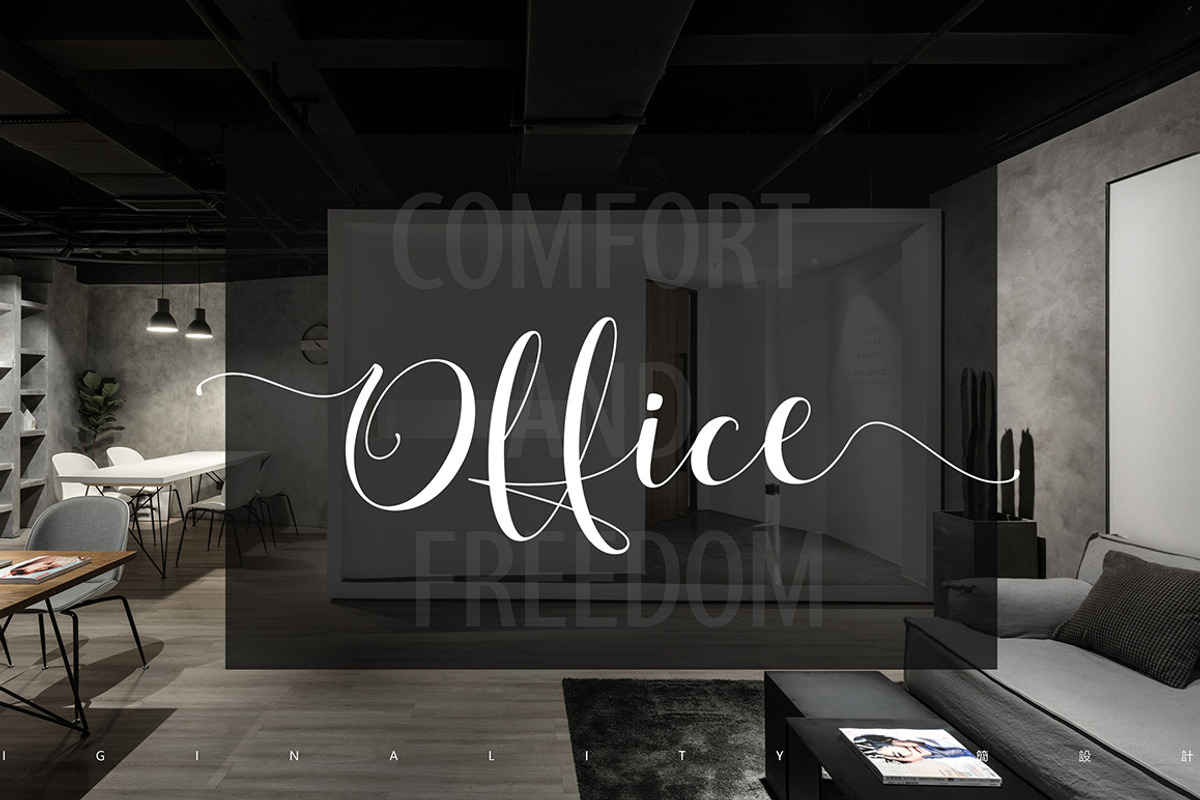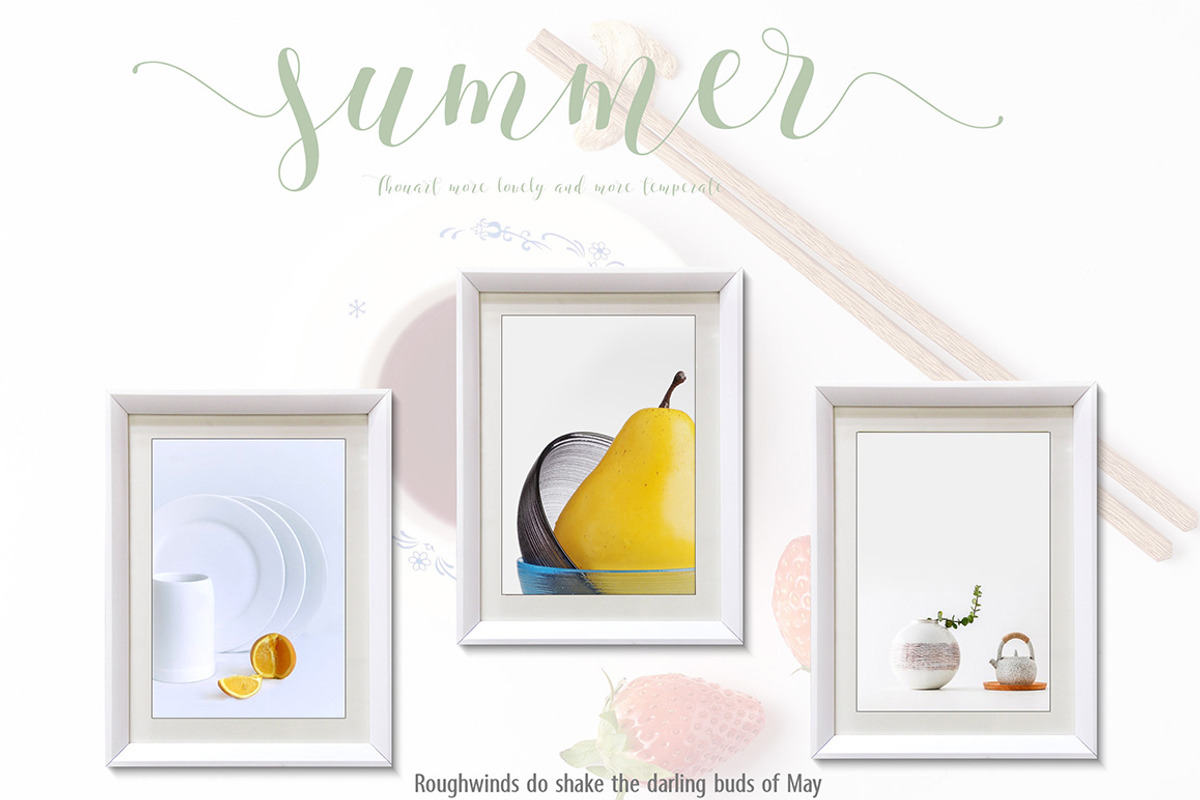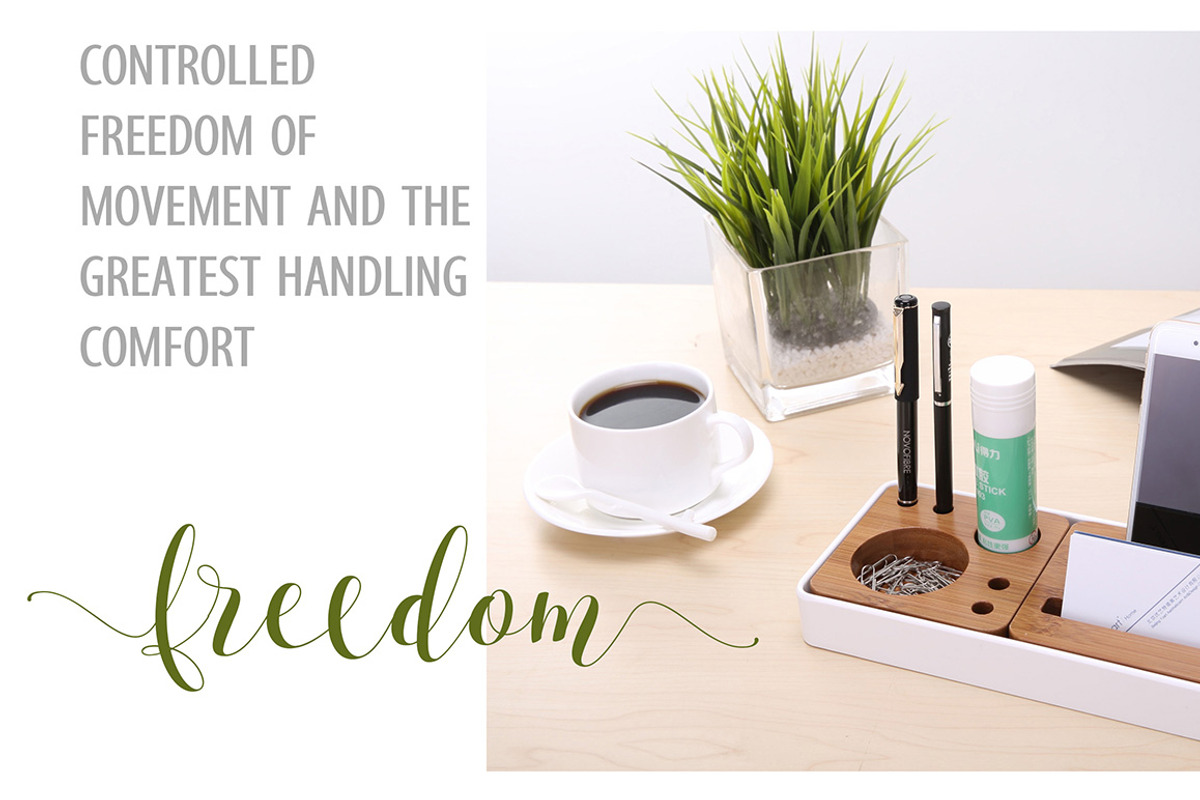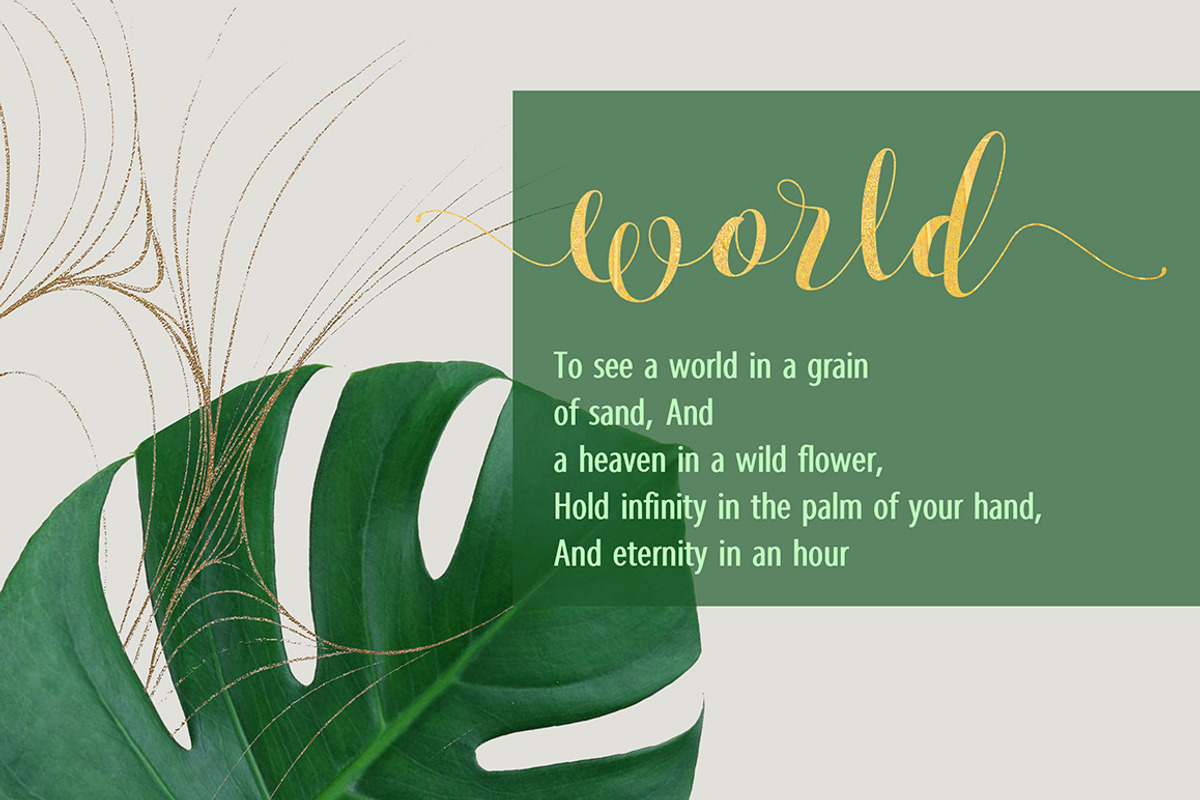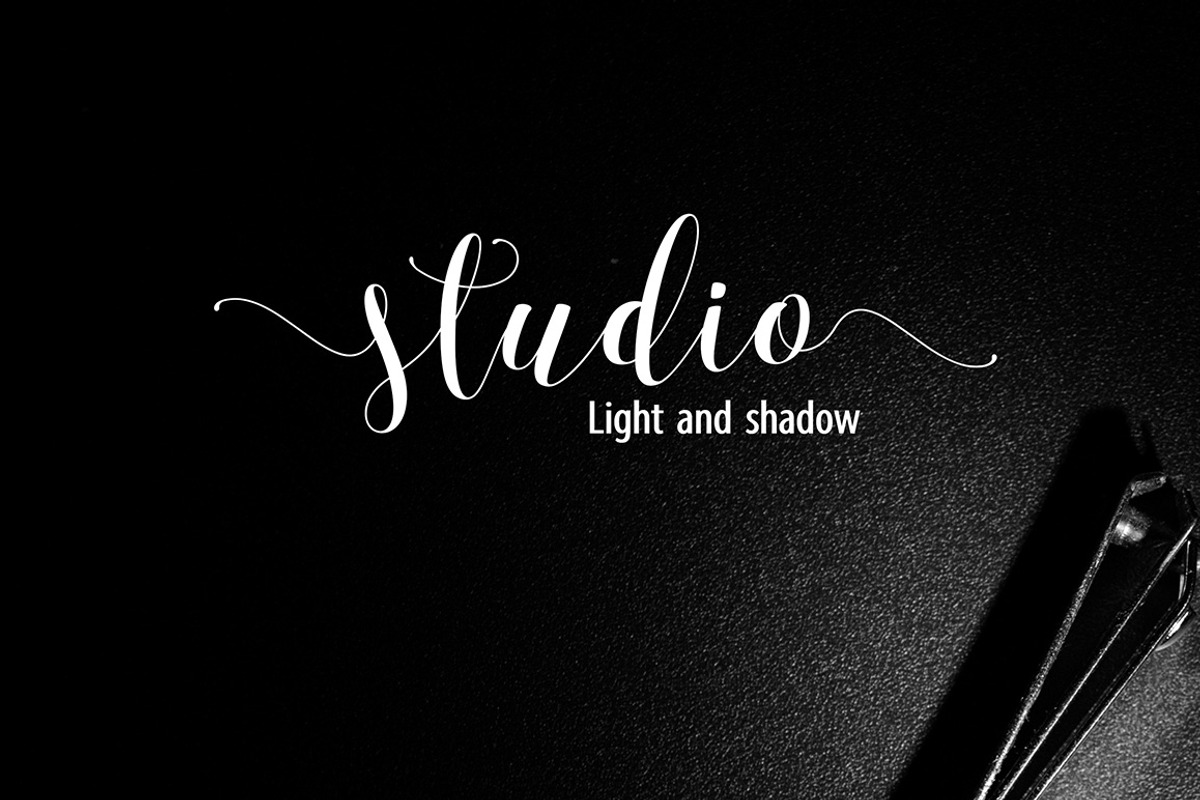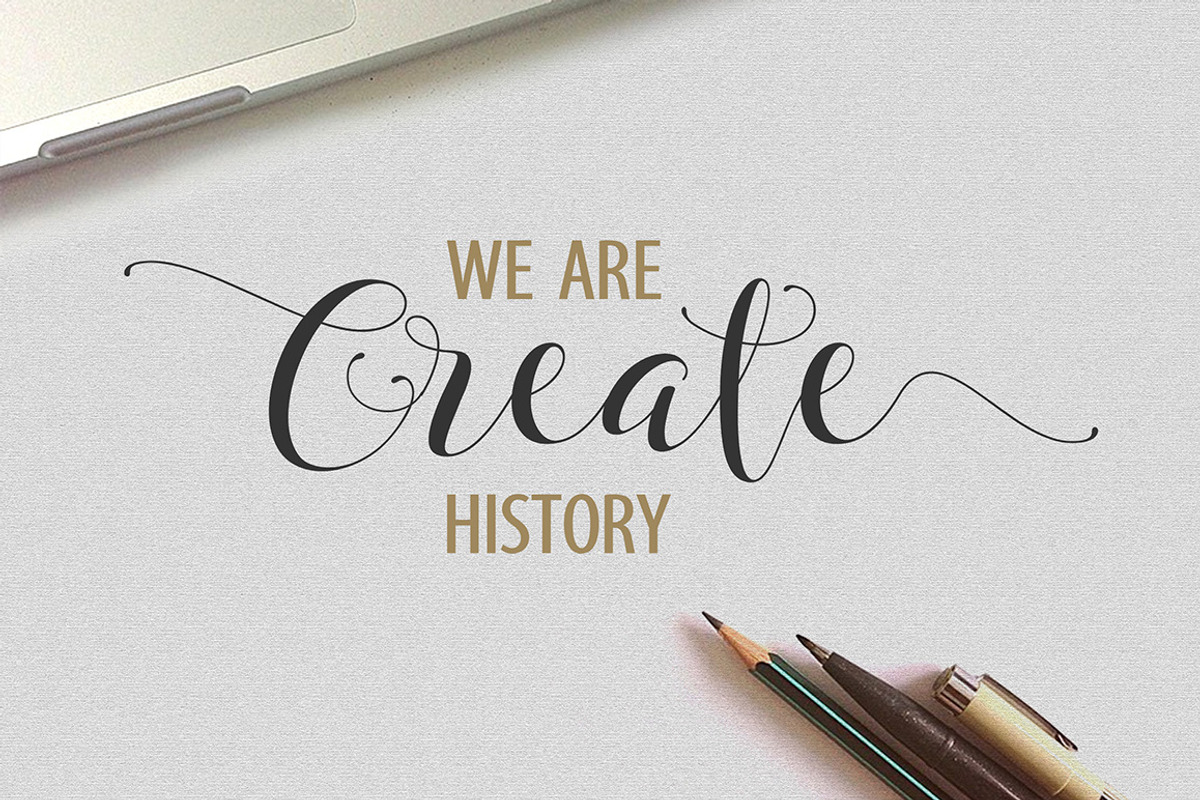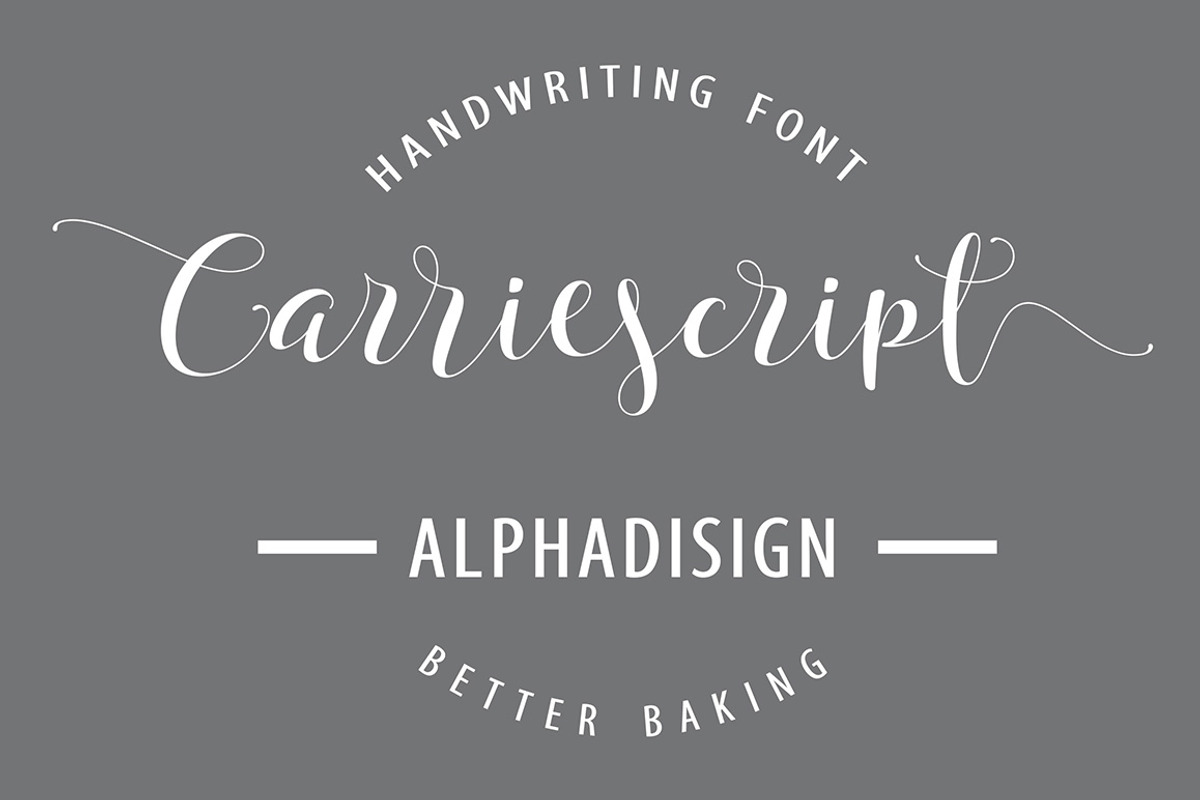
Carriescript Fonts Script+Extras+San
Carriescript includes script font, sans font, and some fancy extras, it can be used in advertisements, picture albums, posters, illustrations, etc Hope you like it, thank you.
Carriescript Fonts Script+Extras+San by alphadesign fits naturally into Branding, posters, packaging, typography.